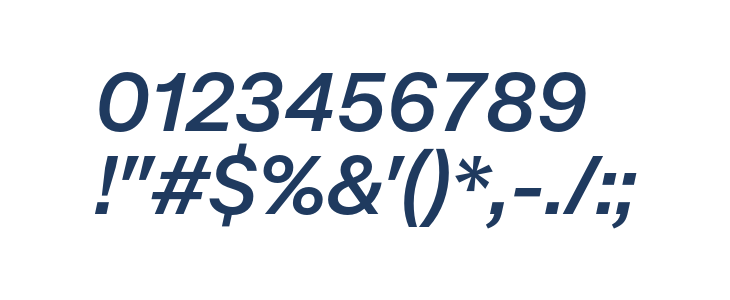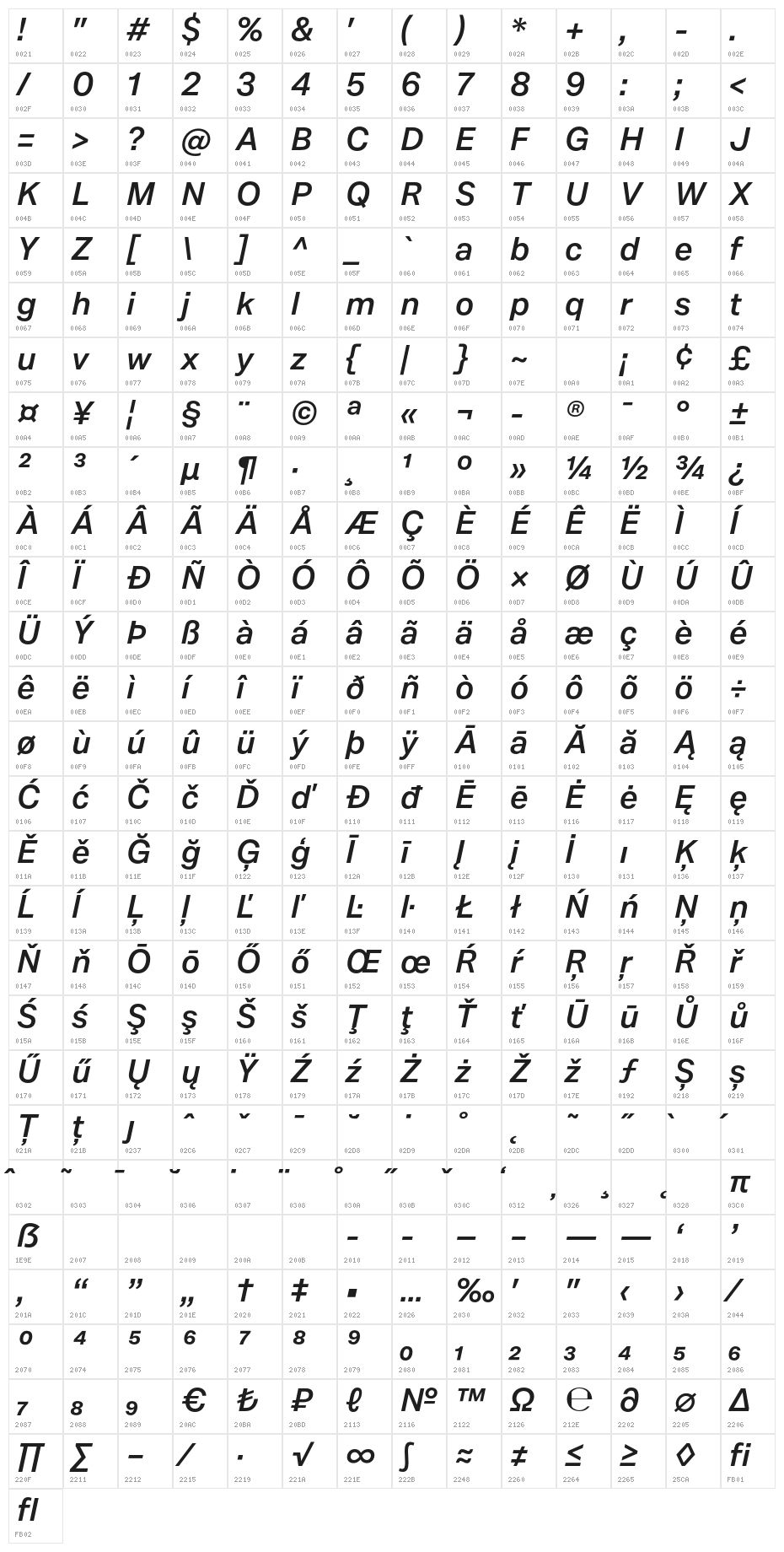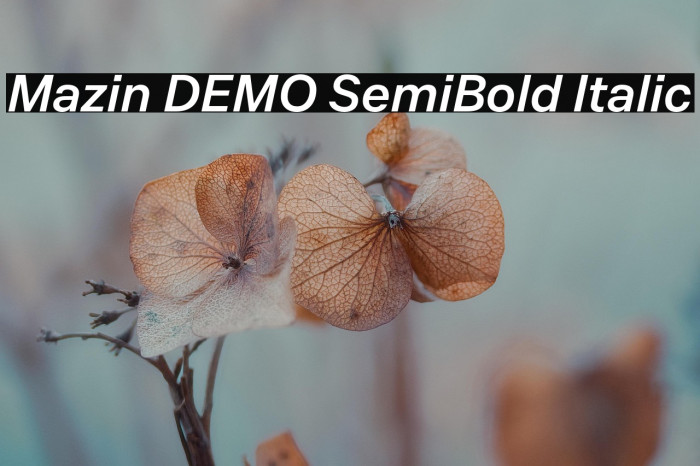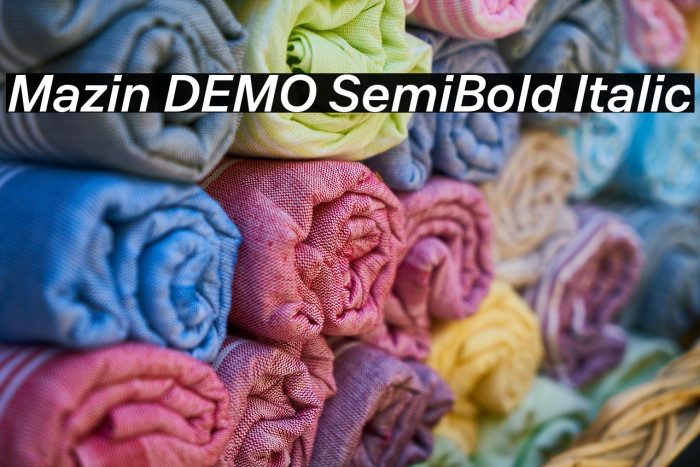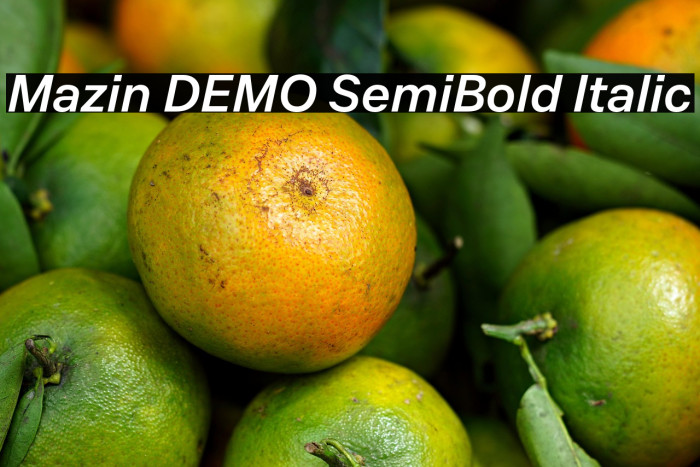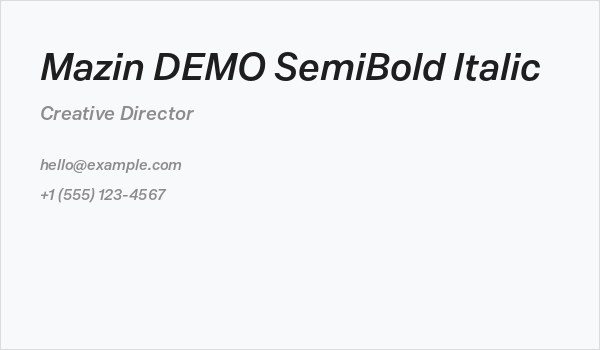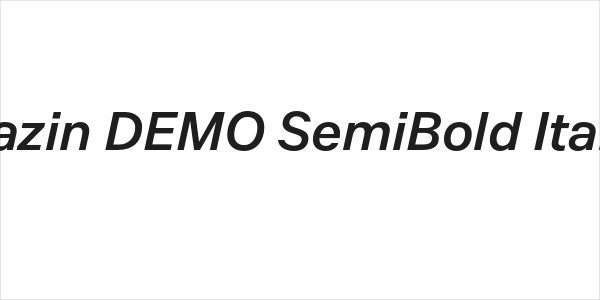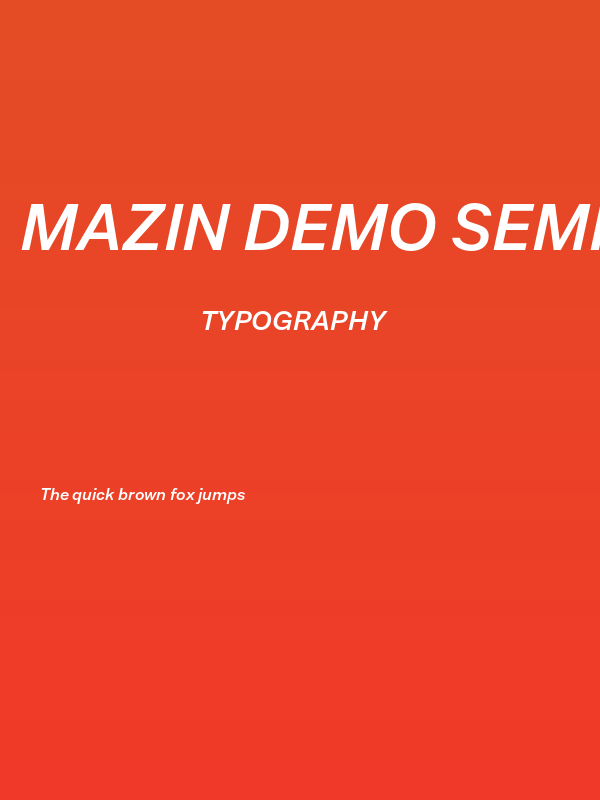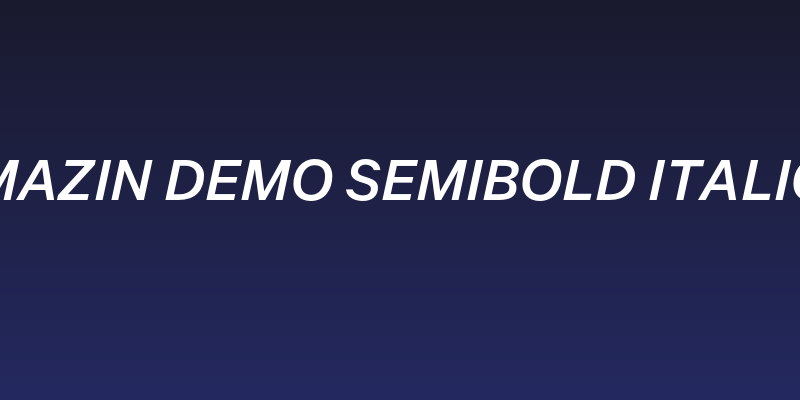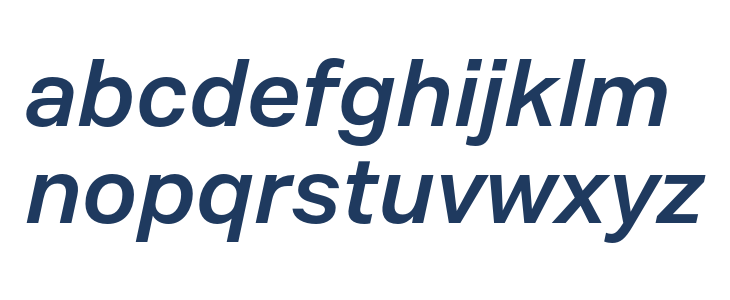
Mazin DEMO SemiBold Italic Font
Mazin DEMO SemiBold Italic Description
This font exhibits a sleek and modern design with a semi-bold weight that provides a strong presence without being overwhelming. The italic style adds a dynamic and forward-leaning appearance, making it suitable for contemporary design projects. The characters are well-proportioned, with a slight slant that enhances readability while maintaining a stylish look. The font includes a full set of uppercase and lowercase letters, numerals, and a variety of special characters, ensuring versatility for different applications. Its clean lines and smooth curves make it ideal for use in digital and print media.